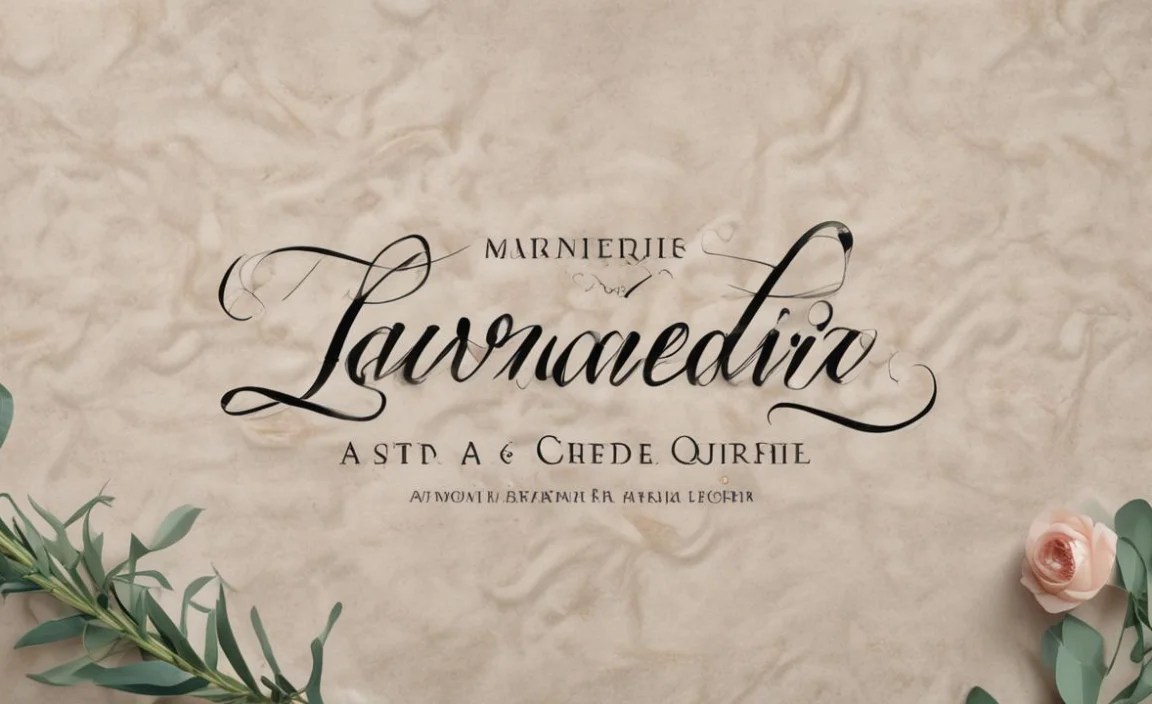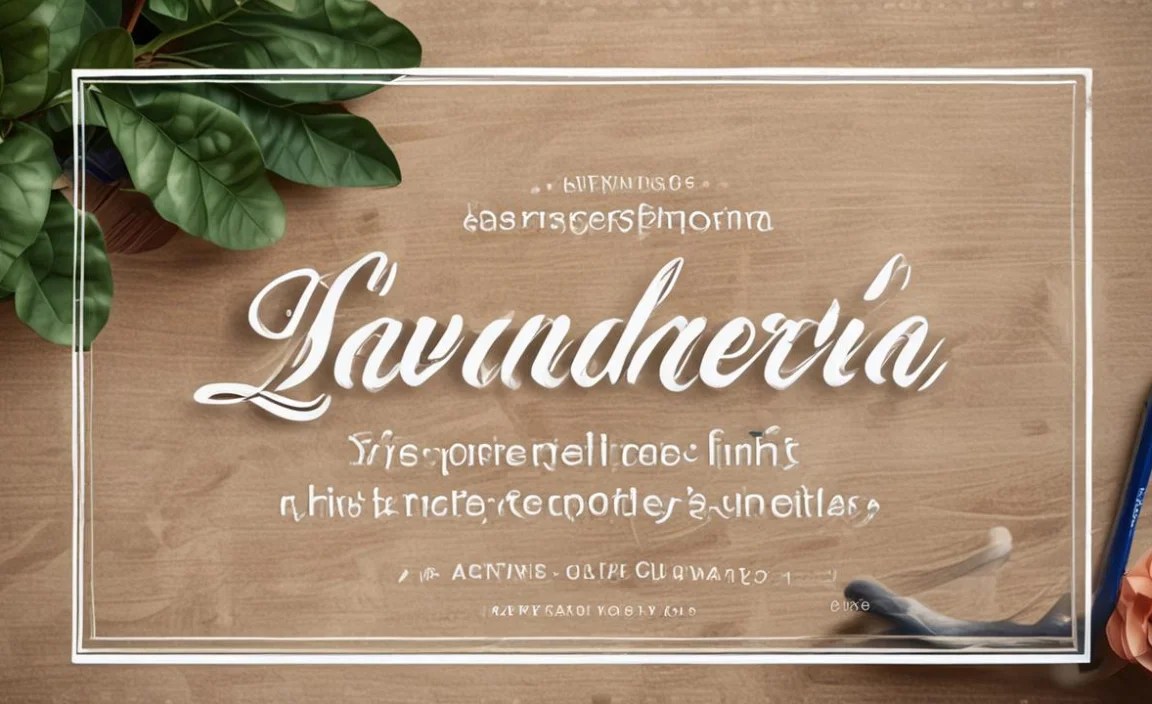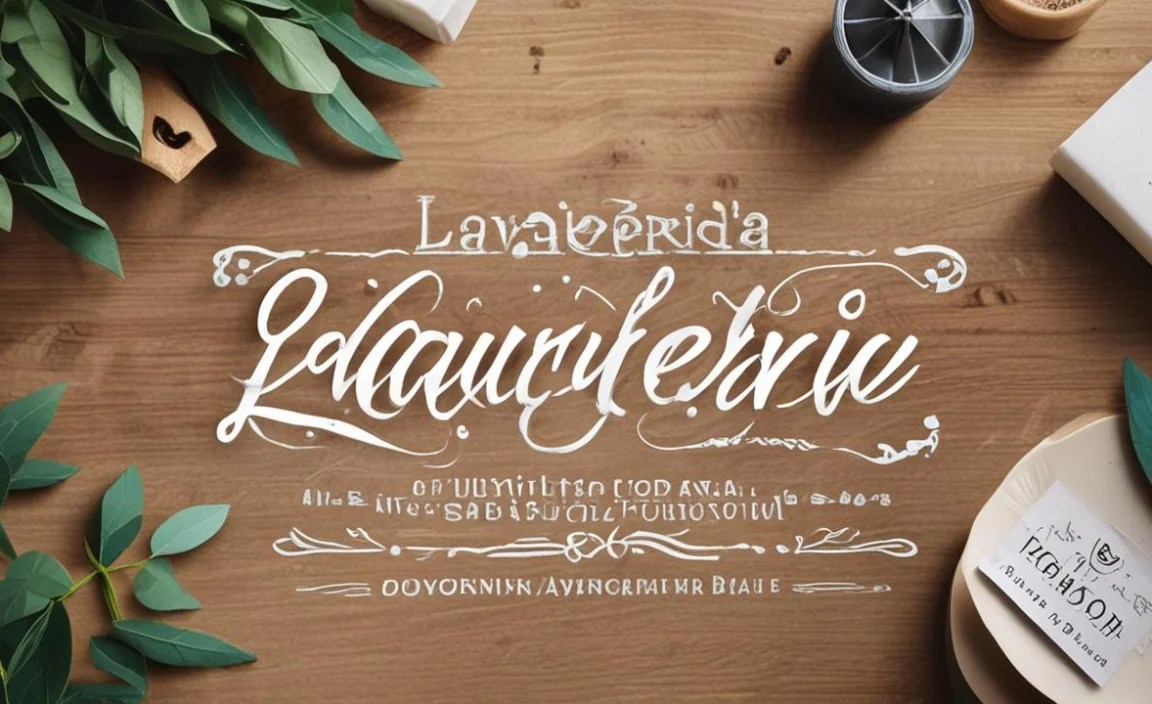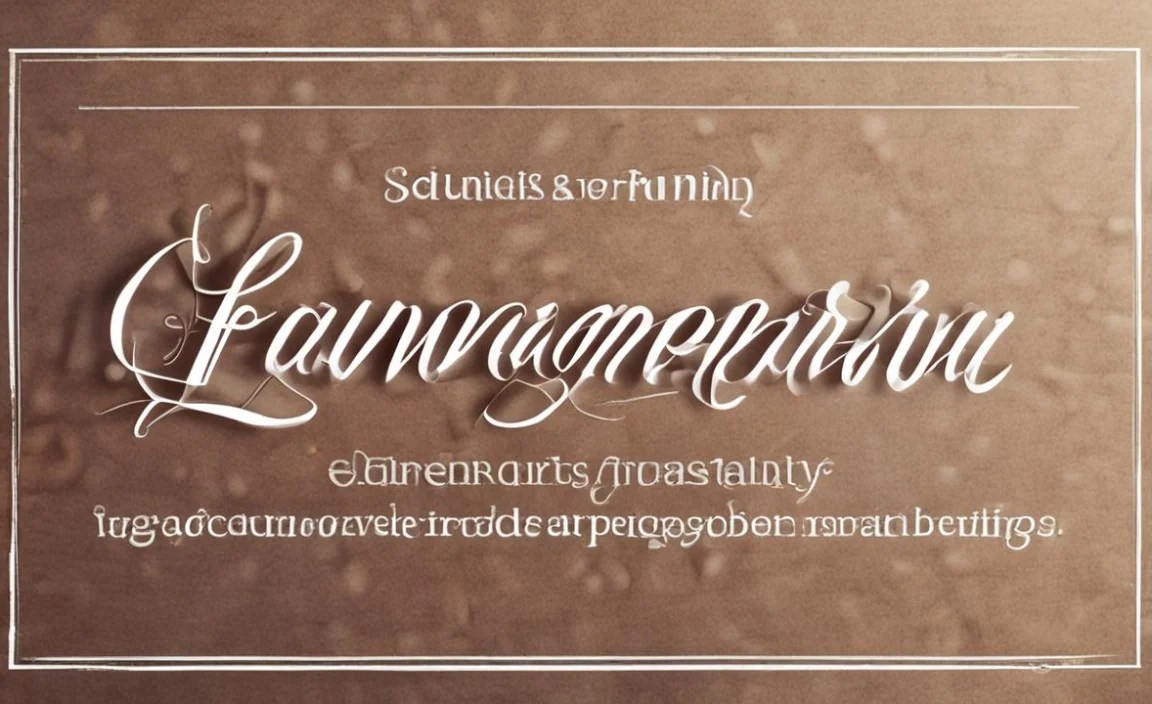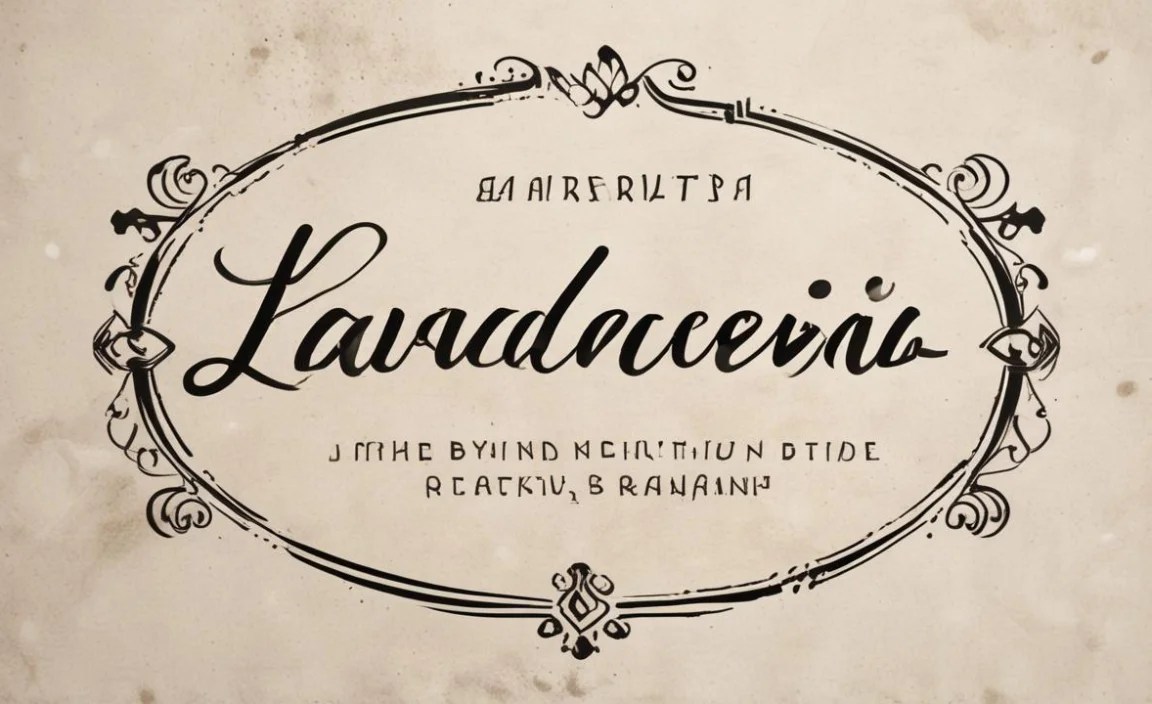
Lavanderia is a unique and playful handwritten calligraphy script font designed by James T. Edmondson. This fun and charming font family is perfect for adding personality to a variety of design projects, such as logos, invitations, posters, and more.
Inspired by the retro hand-lettered signs from San Francisco’s Mission District, Lavanderia offers a modern yet nostalgic aesthetic. It’s available in multiple weights like Lavanderia Regular, Lavanderia Bold, Lavanderia Sturdy, and Lavanderia Delicate, making it a versatile option for different design needs.
Lavanderia Information
| Name | Lavanderia |
| Style | Calligraphy Script Font |
| Designer | James T. Edmondson |
| Type | Handwritten, Script Font |
- Lavanderia Delicate
- Lavanderia Regular
- Lavanderia Sturdy
Where Lavanderia Is In Use
- Websites: Lavanderia is frequently used in web design, adding a fun and stylish touch to modern sites.
- Branding & Logos: The playful nature of the font makes it ideal for branding projects, especially logos and headings.
- Invitations: Perfect for wedding invitations, greeting cards, and personal stationery.
- Signage & Posters: Frequently used in posters, advertisements, and promotional material for its eye-catching style.
- Presentations: Adds a unique element to presentations, making text stand out with a handwritten flair.
- With Sans-Serif Fonts: Pair Lavanderia with clean and modern fonts like Montserrat or Open Sans to balance its playful nature.
- With Serif Fonts: Pair it with fonts like Playfair Display or Merriweather for a sophisticated and classic look.
- With Another Script Font: For projects needing a more whimsical feel, combine Lavanderia with other fun fonts such as Brock Script or Frutilla Script.
2.What Are The Available Weights In Lavanderia Font Family?
The Lavanderia font family includes Lavanderia Regular, Lavanderia Bold, Lavanderia Italic, and Lavanderia Condensed.
4.What Makes Lavanderia Font Unique?
Lavanderia is a calligraphy script font inspired by retro hand-lettered signage, offering a distinctive blend of modern and vintage appeal.
5.What Are The Similarities Between Lavanderia And Other Fonts?
Lavanderia is similar to fonts like BrockScript and Eutemia I Italic due to its fluid strokes and elegant letterforms.